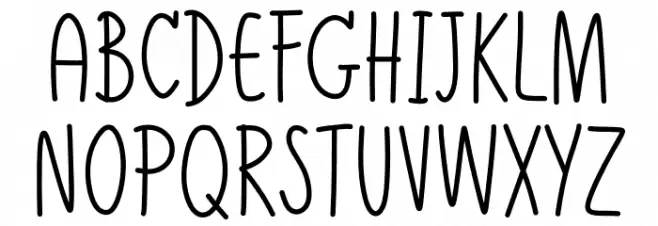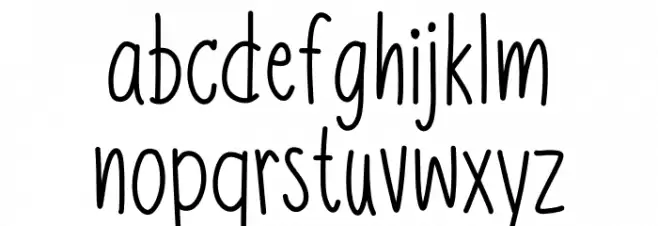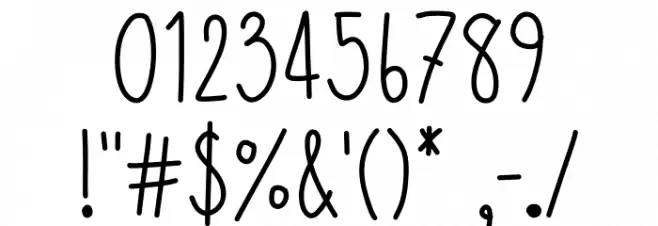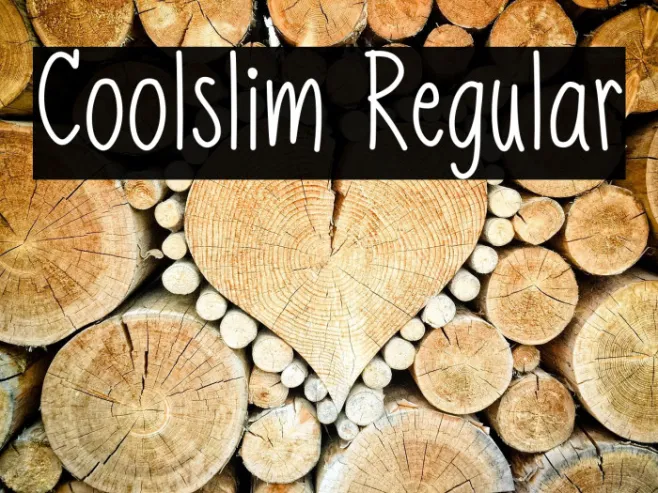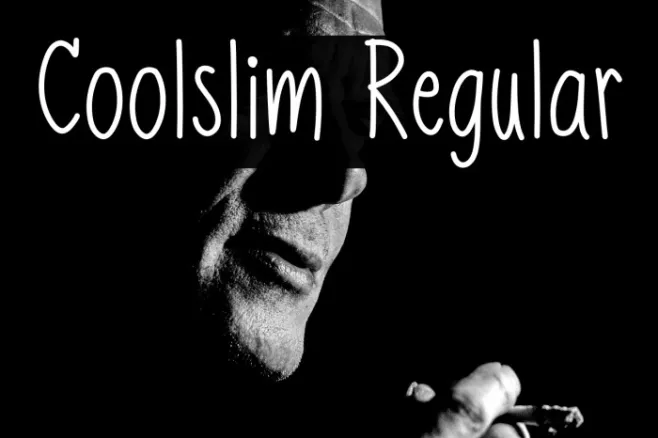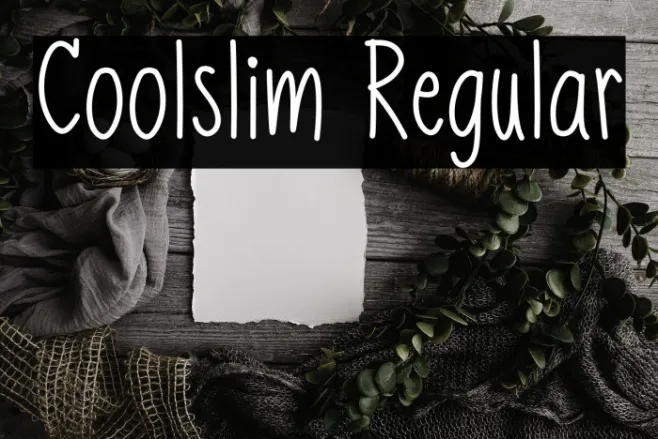
Coolslim Regular
This font features a playful and casual handwritten style, characterized by its tall, narrow letters and slightly irregular strokes. The uppercase and lowercase letters maintain a consistent height, giving the font a uniform appearance. The numerals and special characters are crafted with the same playful touch, making them blend seamlessly with the alphabet. The overall design is clean yet informal, making it suitable for projects that require a friendly and approachable feel.
A playful, handwritten font with tall, narrow letters and a casual style.
- Proposed Projects: Ideal for children's books, greeting cards, casual branding, and social media graphics.
- Width: Condensed
- Overall Style: Casual
- Use Case: Headlines, Informal text, Branding